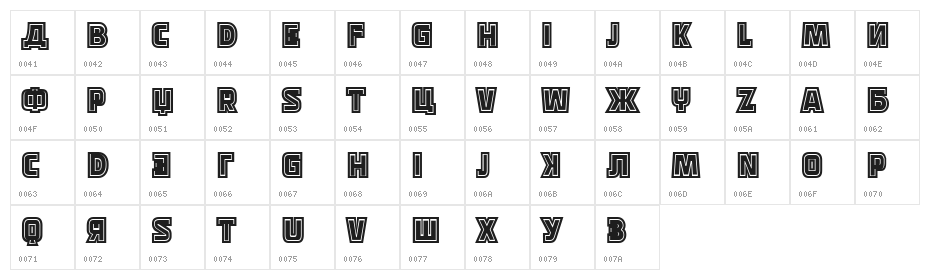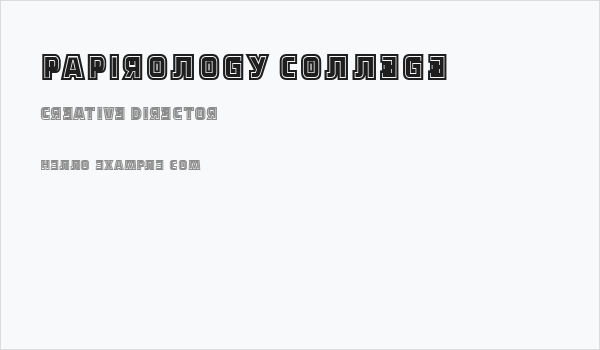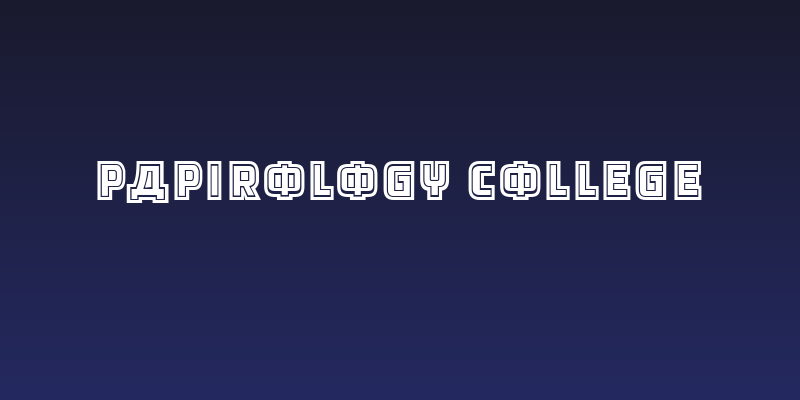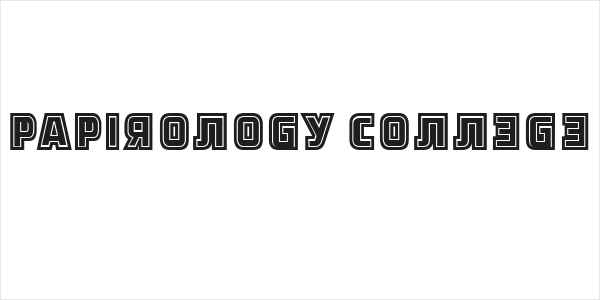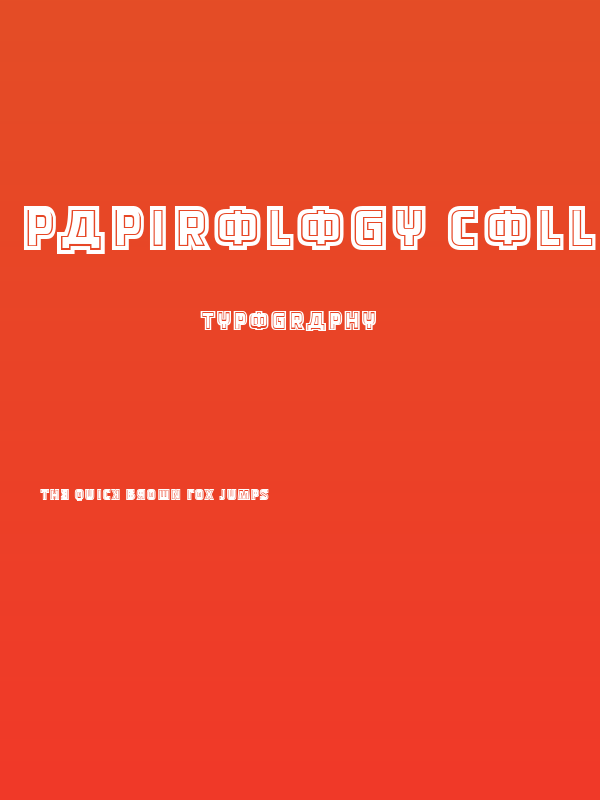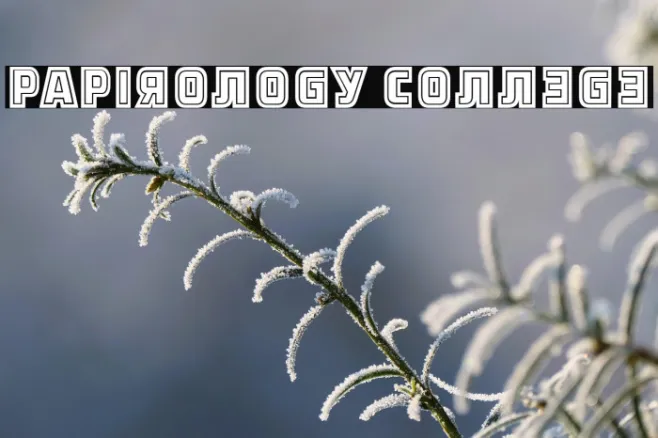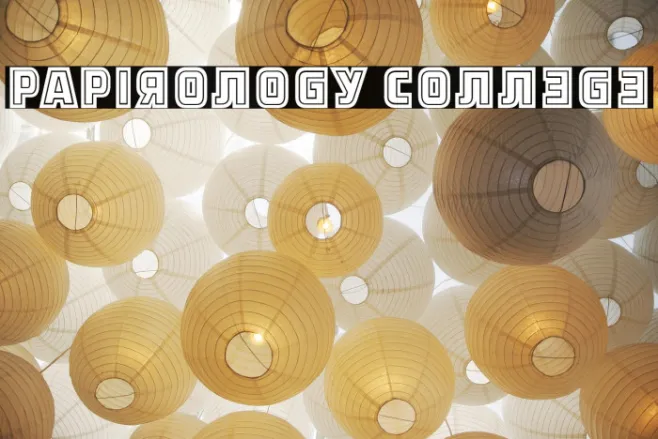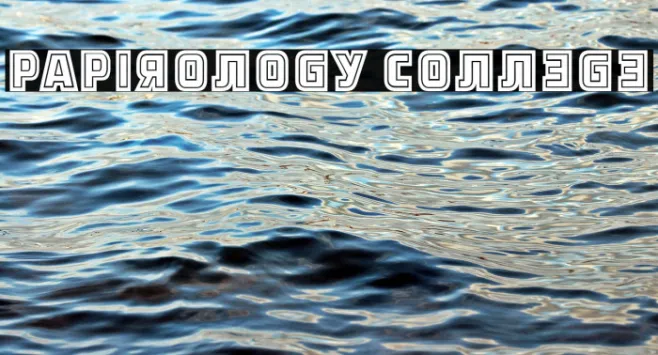
Papirology College Font
Papirology College Description
This font features a bold, collegiate style with a strong, geometric structure. Each character is outlined, giving it a distinctive, layered appearance that enhances its visibility and impact. The uppercase letters are particularly striking, with a uniform height and width that convey a sense of stability and strength. The font's design is reminiscent of traditional varsity or sports team lettering, making it ideal for projects that require a bold and assertive typeface. The characters are evenly spaced, ensuring readability while maintaining a cohesive look. The font's overall style is both modern and nostalgic, capturing the essence of classic college aesthetics with a contemporary twist.
| Proposed Projects | Ideal for sports team branding, university merchandise, event posters, and retro-themed designs. |